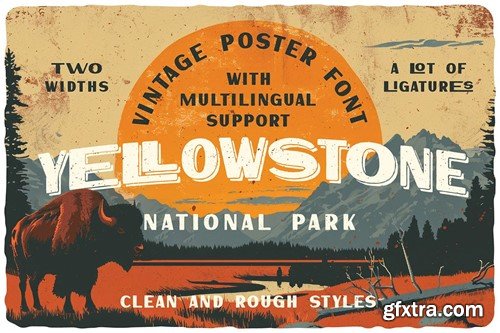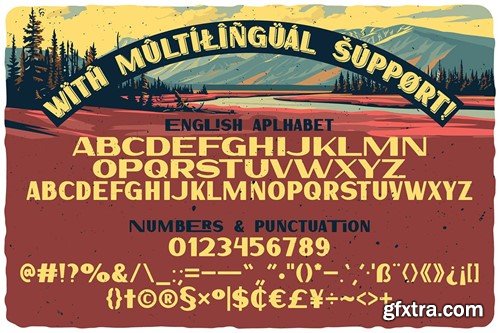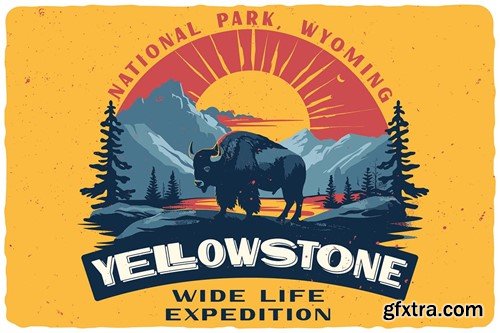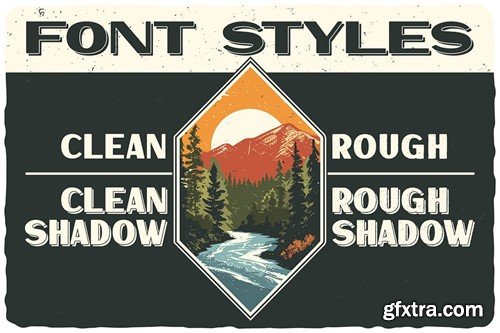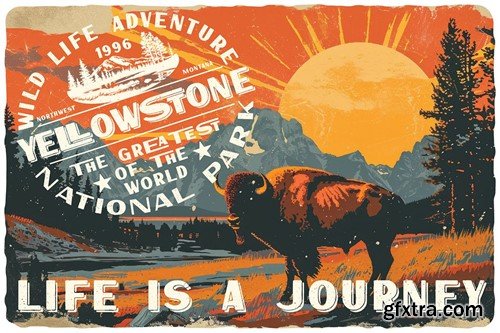
Yellowstone Vintage Poster Font VKAUNJJ
Yellowstone Vintage Poster Font
Unique, vintage, retro, rough & wide sans serif font. Comes with multilingual support & ligatures - great for your new logo or branding project.
• 4 font styles - 2 regular & 2 rough
• Multilingual support & ligatures
• Great for retro or vintage style branding projects